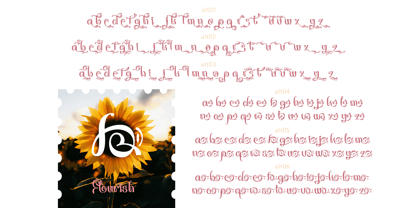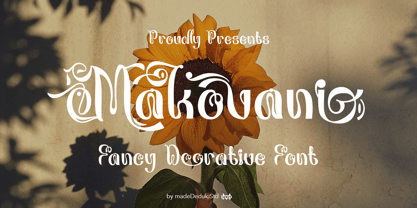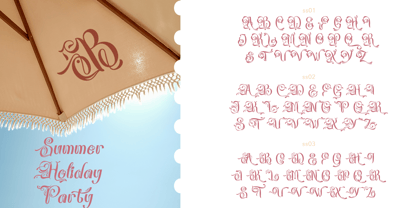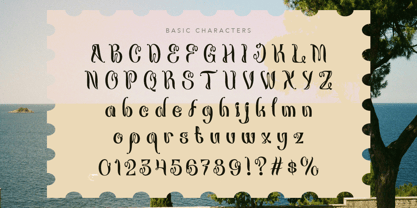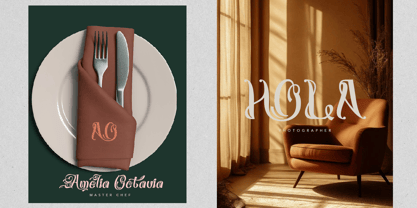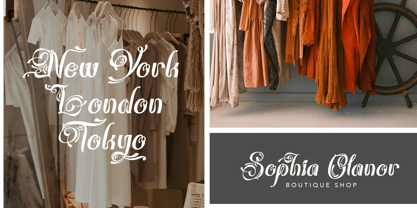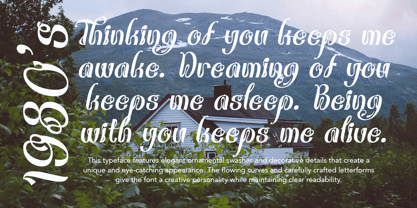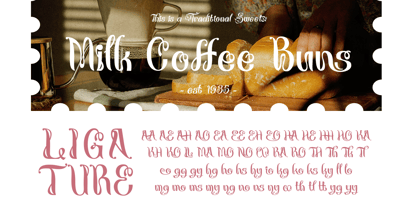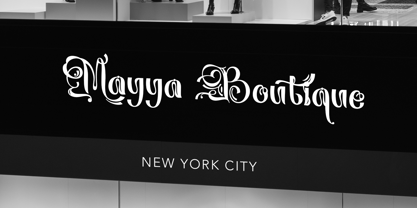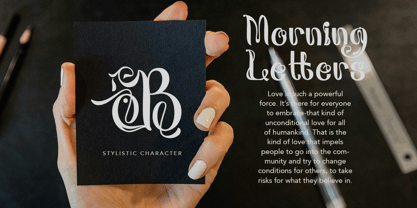
Makovani
by madeDeduk
The Makovani Font Family was designed by madededuk and published by madeDeduk. Makovani contains 2 styles and family package options. More about this family
Introducing Makovani, this typeface features elegant ornamental swashes and decorative details that create a unique and eye-catching appearance. The flowing curves and carefully crafted letterforms give the font a creative personality while maintaining clear readability. Its distinctive style makes it suitable for projects that require a memorable and visually appealing design. This typeface is well suited for packaging design, particularly for snack products, confectionery, beverages, and other food brands. It is also suitable for menu designs, invitations, logos, branding, and promotional materials. Its decorative style helps create a unique brand identity while making product names and design elements more attractive and recognizable. The overall design enhances visual appeal, allowing every project to leave a lasting impression on the audience.
Designers: madededuk
Foundry: madeDeduk